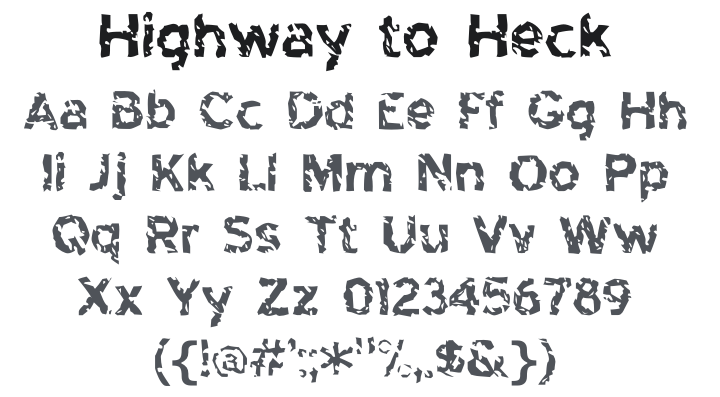
Highway to Heck Font
Highway to Heck is a crumbling, rust-eaten display typeface based on the U.S. Department of Transportation's official FHWA highway signage alphabets — familiar, authoritative letterforms slowly eaten away by age and decay. It looks like a road sign left to rot for decades. Perfect for post-apocalyptic designs, road trip themes, abandoned-place aesthetics, horror game titles, and gritty outdoor-survival branding.